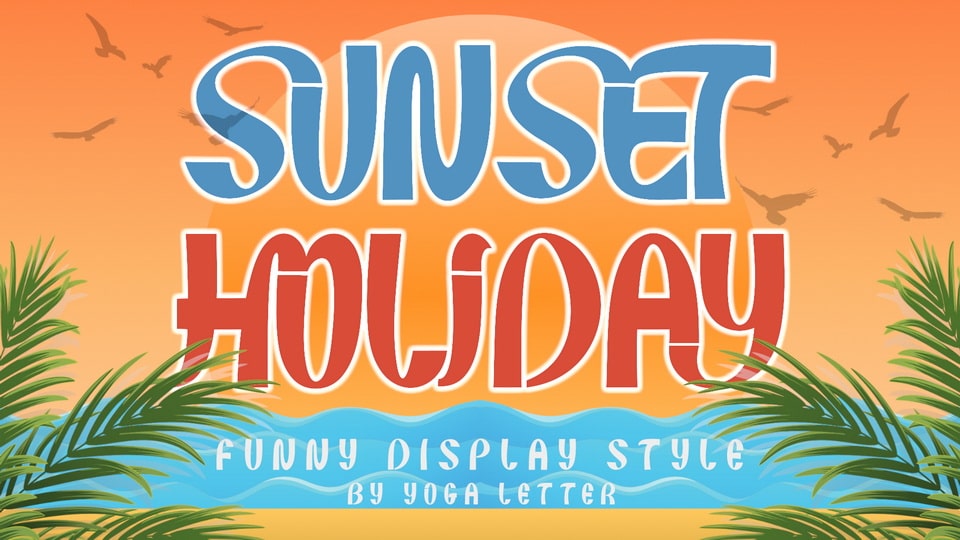
Download Sunset Holiday font, a unique and elegant display typeface. It is very suitable for summer, vacation, camping, 4th of July, Christmas, Halloween, back to school, father’s day and others.